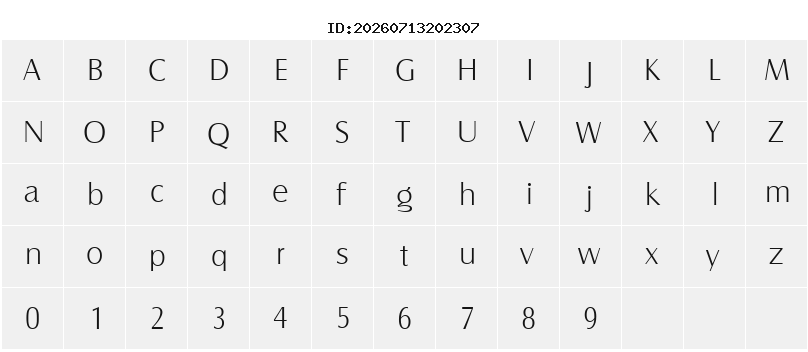
• Font Name: Canossa-Light
• Designer: SoftMaker Software GmbH
• Manufacturer: SoftMaker Software GmbH
About Canossa-Light.ttf
Canossa-Light.ttf is a modern, elegant sans-serif font designed for ultimate readability and visual harmony. Perfect for branding, headlines, web design, and print materials.